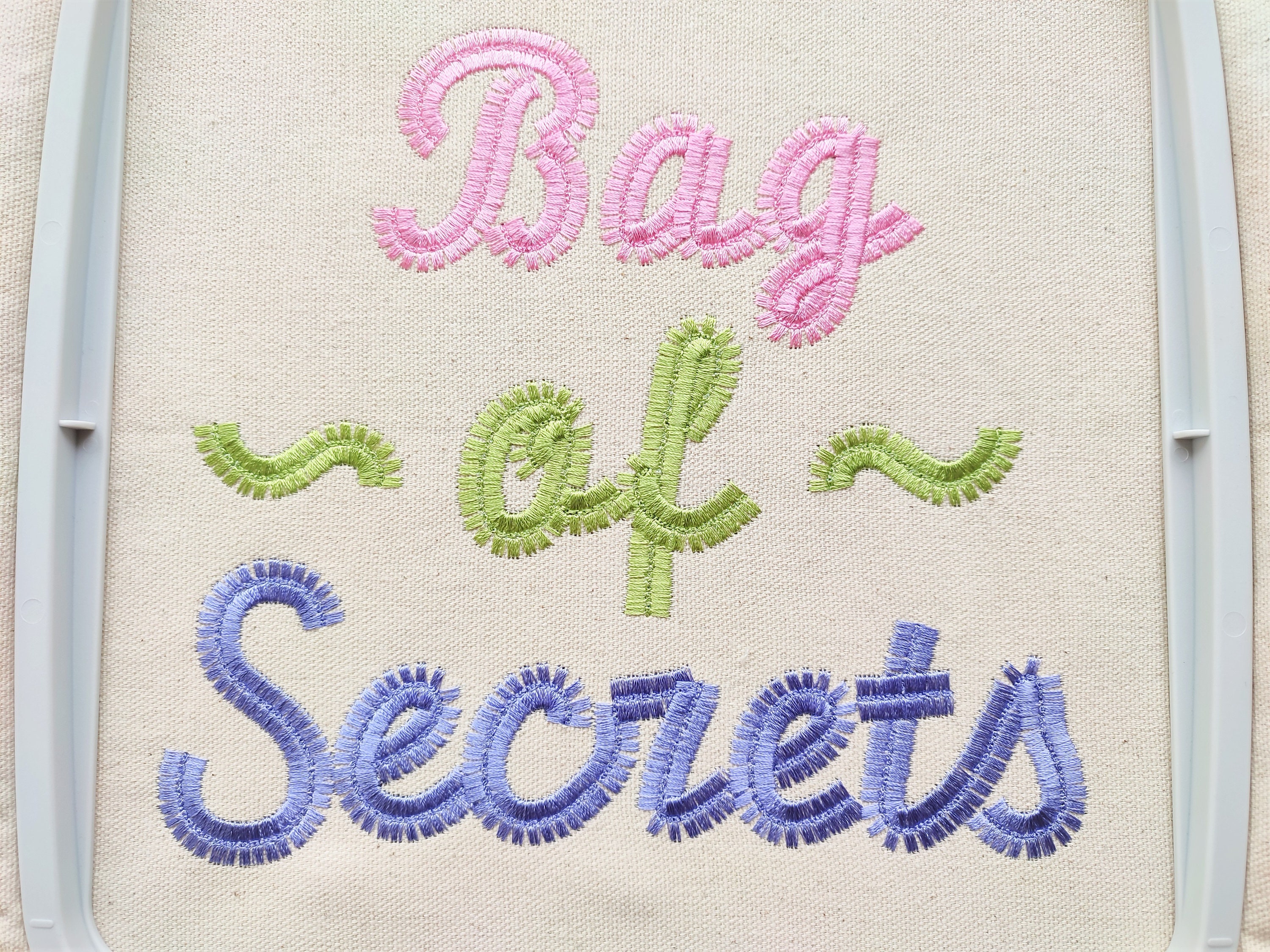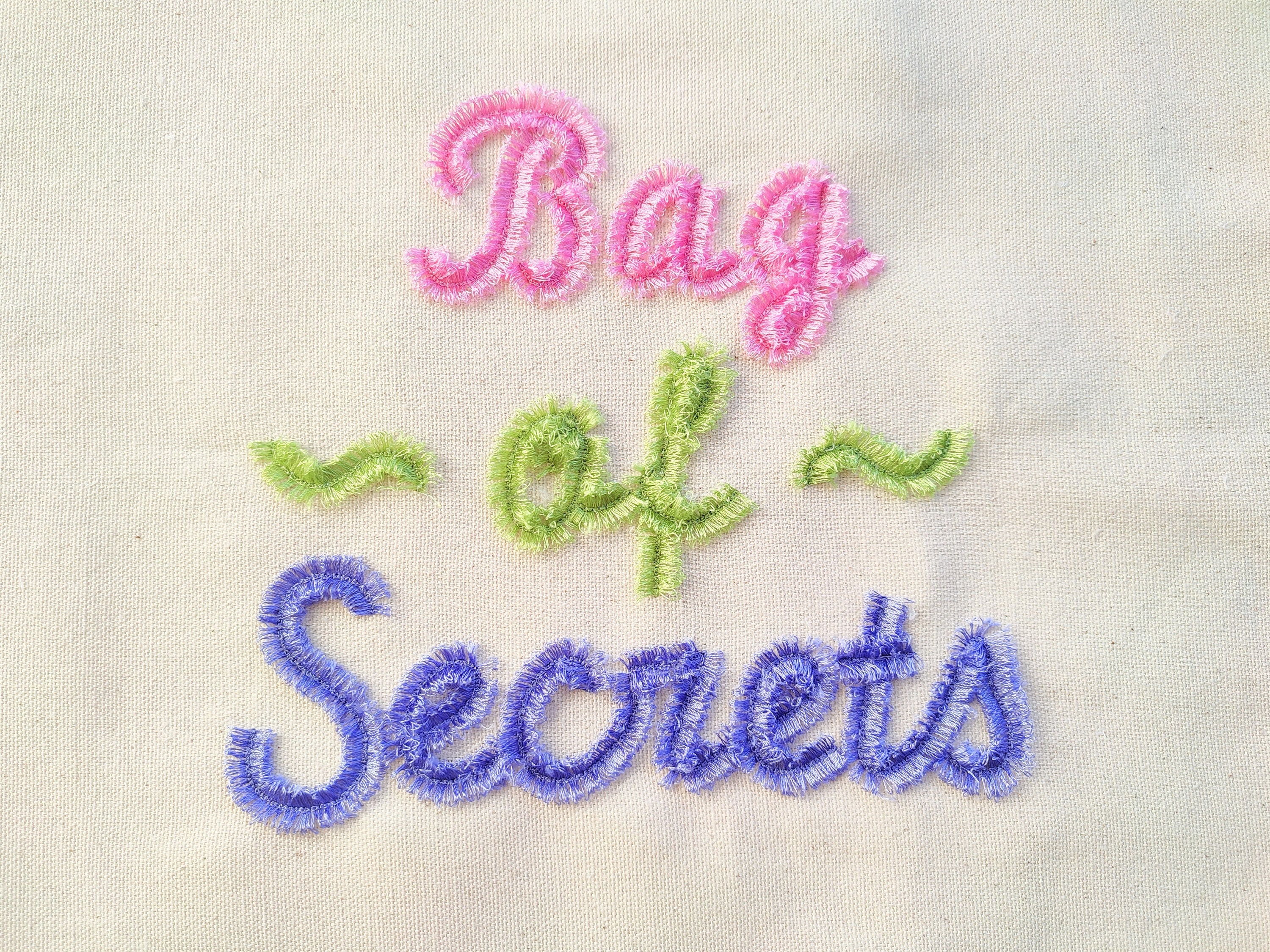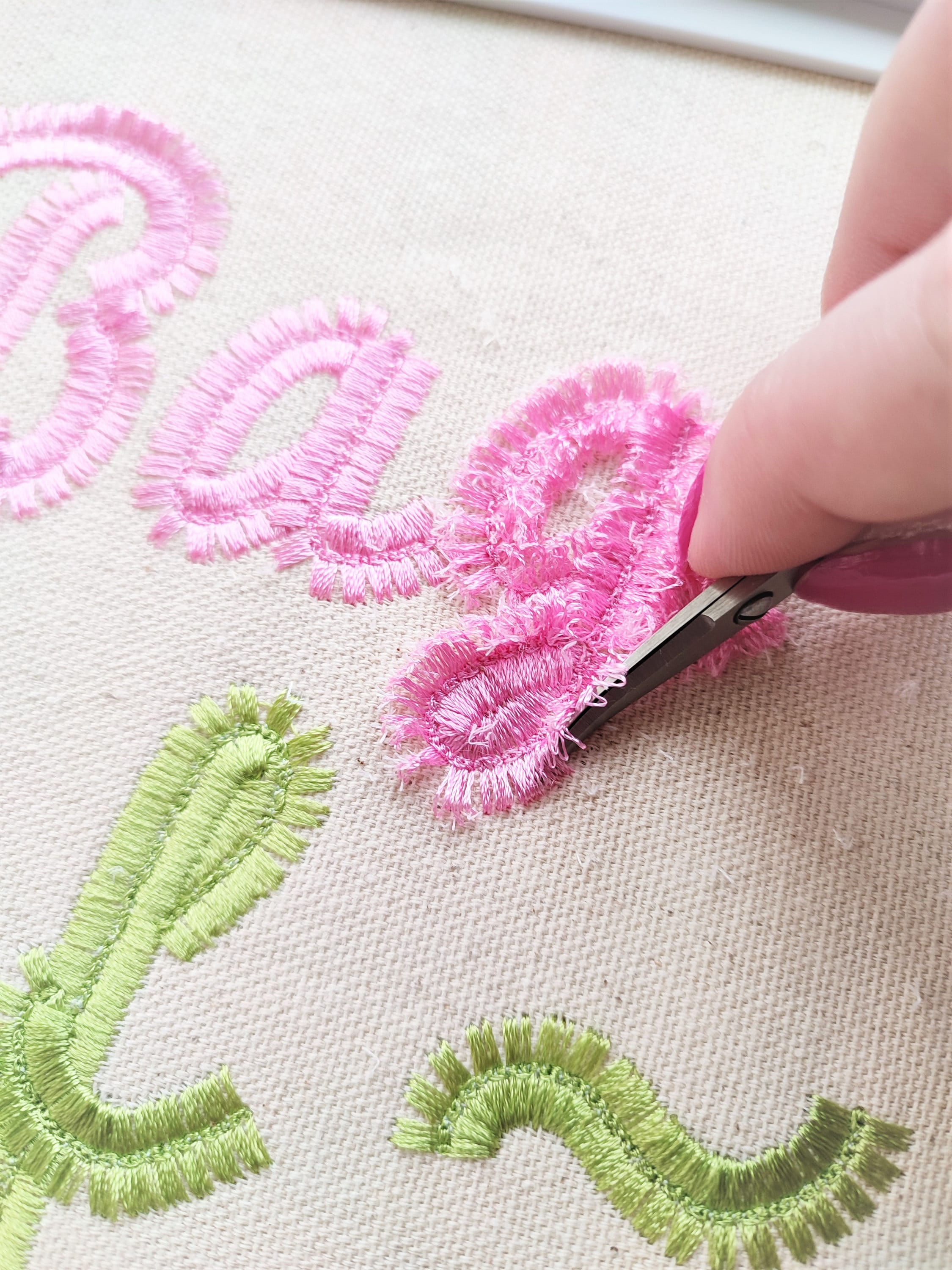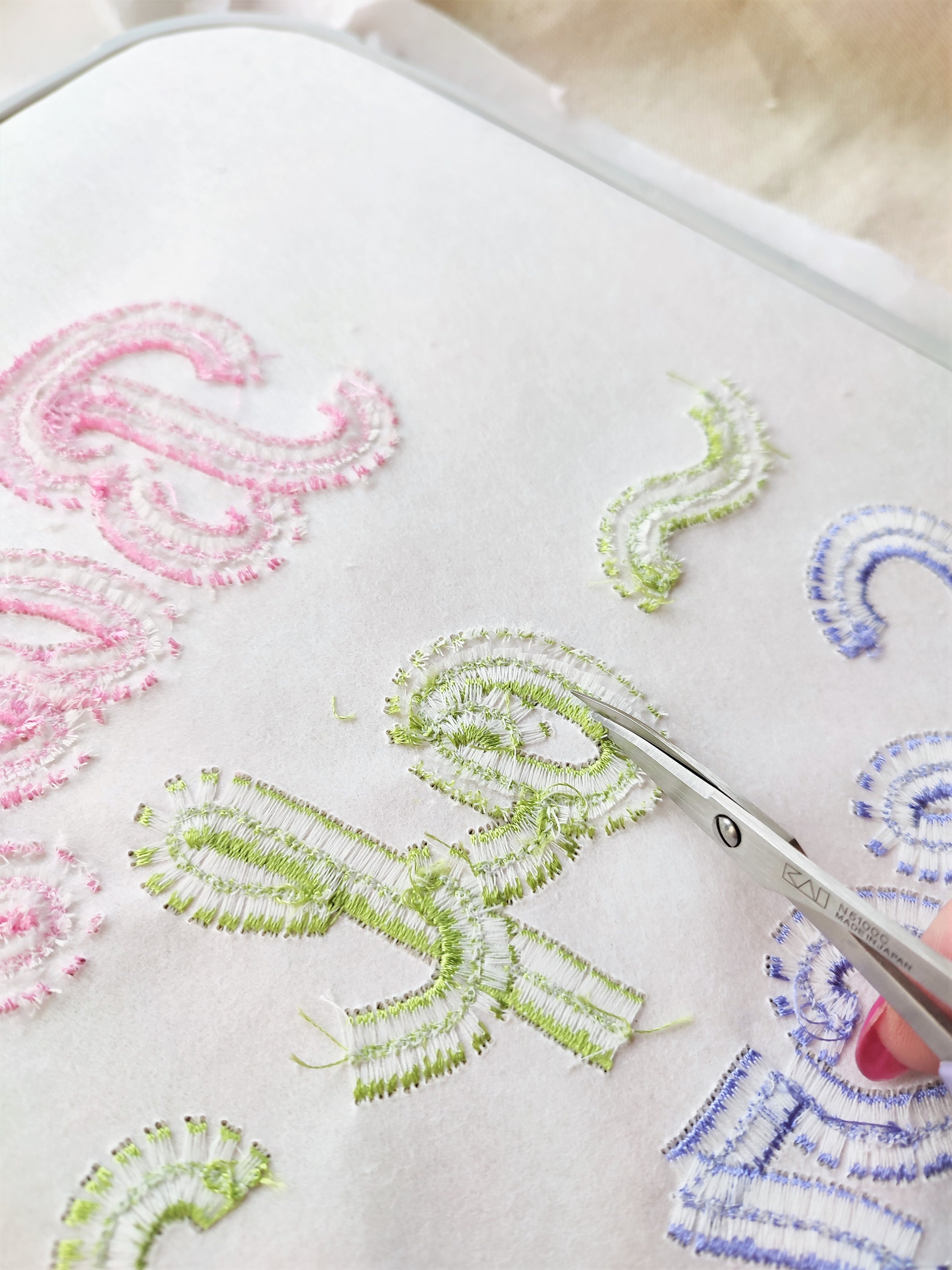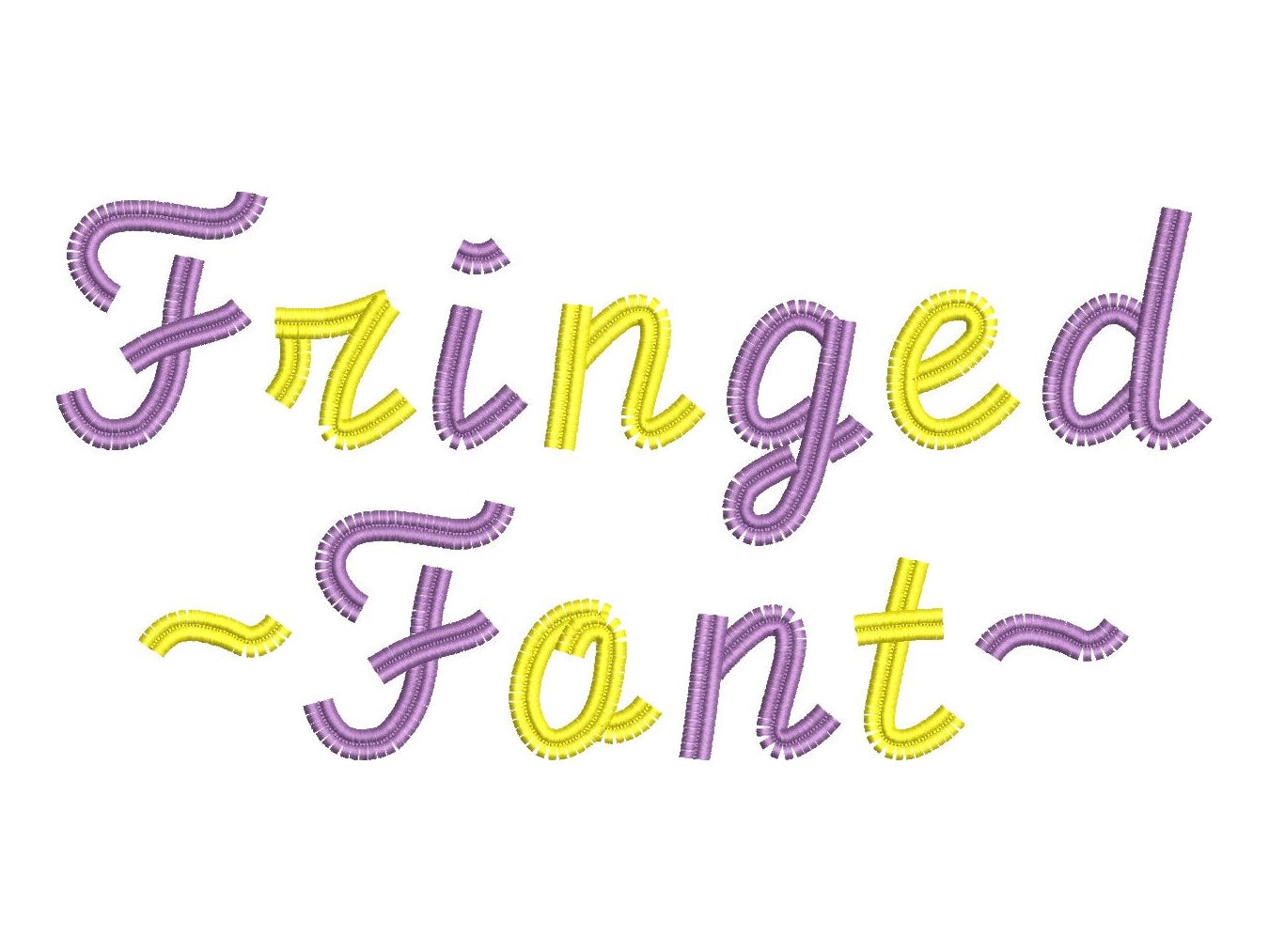
Fringed Handwriting fluffy FONT machine embroidery designs in assorted sizes, girly pretty fluffy letters monogram name, BX font included
You may fringe all letters. Please view images on how-to.
100 % safe to machine wash (the design has a special tack seam holds a fringe on a place)
Entire alphabet A - Z uppercase and lowercase, and special marks & . -